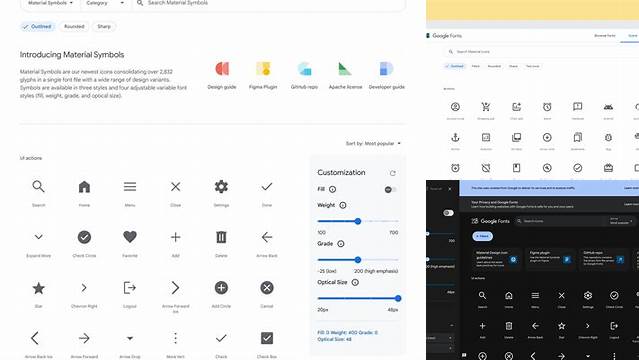
Google Fonts Material Symbols: A Complete Guide
Hey guys! Ever wondered how those slick material symbols pop up on websites? It's all thanks to Google Fonts, and specifically, the Material Symbols outlined family. Let's dive deep into everything you need to know about using these awesome icons to level up your web design game. Get ready for a comprehensive journey through the world of Google Fonts Material Symbols!
What are Google Fonts Material Symbols?
Google Fonts Material Symbols are a set of icons designed to align with Google’s Material Design principles. This means they're clean, modern, and super versatile. They come in three styles: outlined, rounded, and sharp, but we're focusing on the outlined version here. These symbols are designed to be easily integrated into your website or application, giving it a polished and professional look. They cover a wide range of categories, from basic UI elements like arrows and buttons to more specific icons for categories like media, communication, and devices. Using Google Fonts Material Symbols can greatly enhance the user interface of your website, making it more intuitive and visually appealing. The outlined style offers a lightweight and minimalist aesthetic, perfect for contemporary designs. These symbols are also scalable, meaning they look great at any size, whether you’re using them for small buttons or large headings.
Why Use Google Fonts for Material Symbols?
How to Embed Material Symbols via Google Fonts
Customizing Material Symbols with CSS
Alright, now for the fun part: customizing your Material Symbols with CSS! You have a ton of control here, so let your creativity shine. The most basic customization is changing the size. You can use the font-size property to make your icons bigger or smaller. For example, font-size: 24px; will set the icon size to 24 pixels. Color is another easy one; just use the color property. For instance, color: #007bff; will make your icons a nice blue color. But it doesn't stop there. You can also use CSS to add effects like shadows, transitions, and animations. A simple text-shadow can add depth, while transition can create smooth hover effects. For more complex animations, you can use keyframes. You can even use CSS variables to easily manage the styling of your icons across your entire website. This allows for consistent design and makes it easy to update the look and feel of your site in the future. Experiment with different CSS properties to find the perfect style for your Material Symbols.
Using Material Symbols in HTML
So, you've got your Google Fonts link set up. Now, how do you actually use Material Symbols in your HTML? It's pretty straightforward. As mentioned earlier, you'll use the <span> tag with the material-symbols-outlined class. Inside the <span> tag, you'll put the name of the symbol you want to display. For example, if you want the